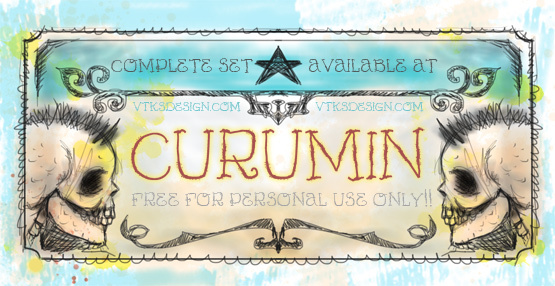
Vtks Curumin by Douglas Vitkauskas is a free eccentric display font with wiry strokes and sharply flicked details. Its uneven heights, looping curves, and pinched joins make the letters look deliberately restless rather than carefully typeset.
It is especially convincing on music posters, where the wandering outlines can echo loose illustration or underground artwork. The spindly forms also suit album packaging and offbeat fashion branding. In editorial design, it can turn a magazine feature title into part of the drawing, especially for stories on independent art, handmade objects, or experimental culture.